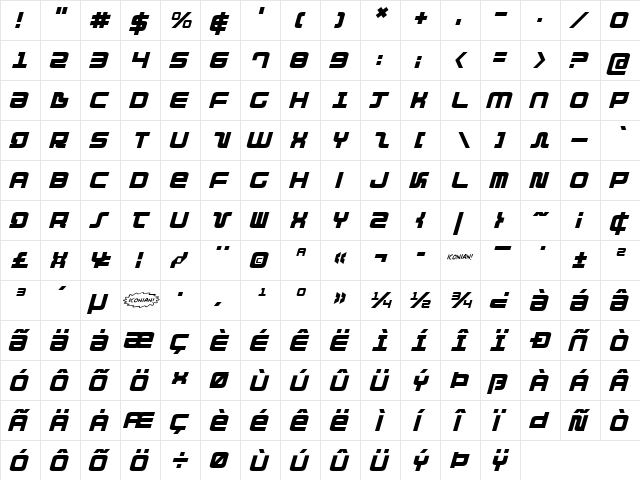
Direktor Italic Italic
Design Context for Direktor Italic Typeface
Direktor Italic is a composed and adaptable typeface that performs quietly and consistently across a wide range of design contexts. The slanted form adds forward momentum and visual energy.
Pro Tip: Try Direktor Italic for annotation and caption copy alongside an upright companion — the contrast in angle creates a dynamic but ordered typographic system.